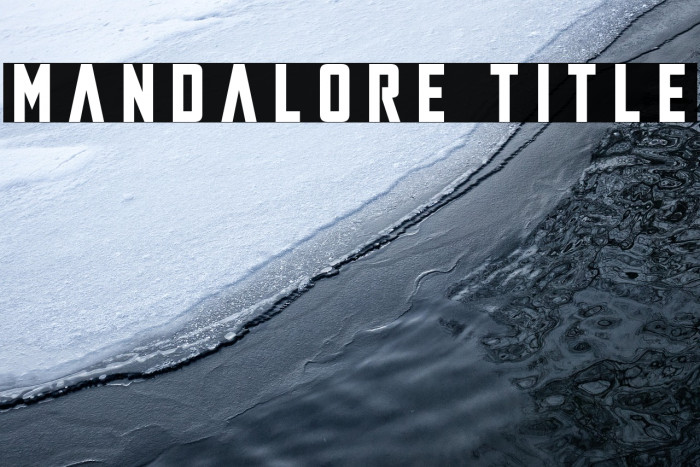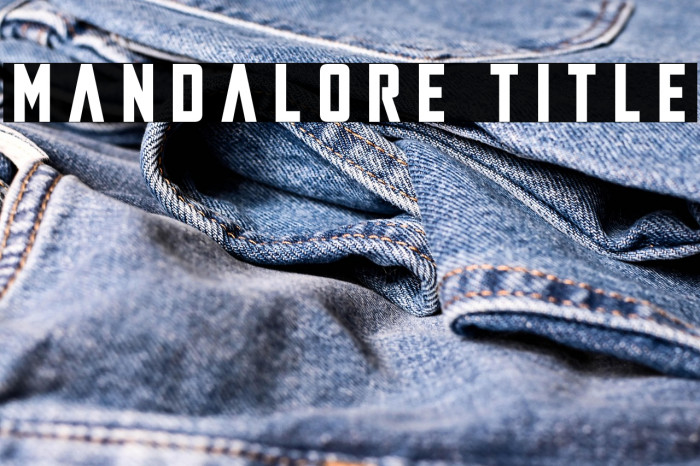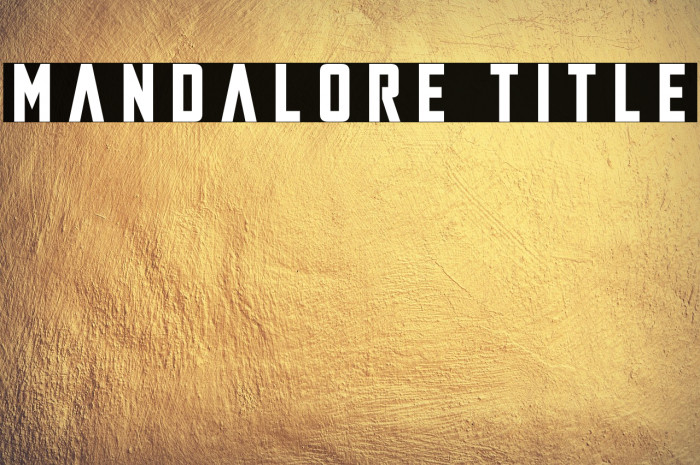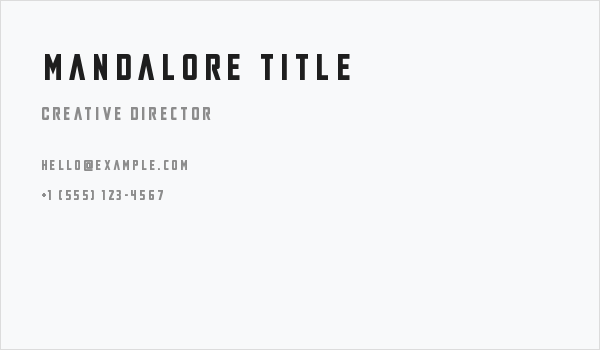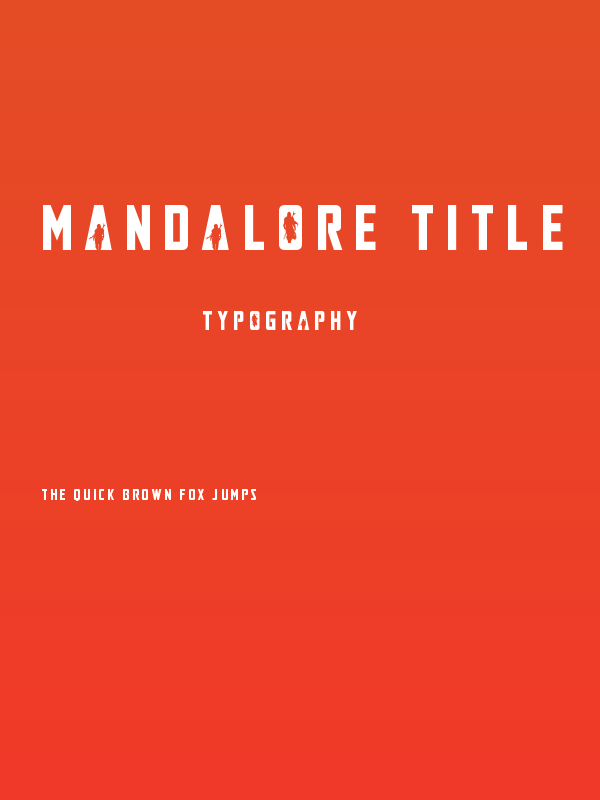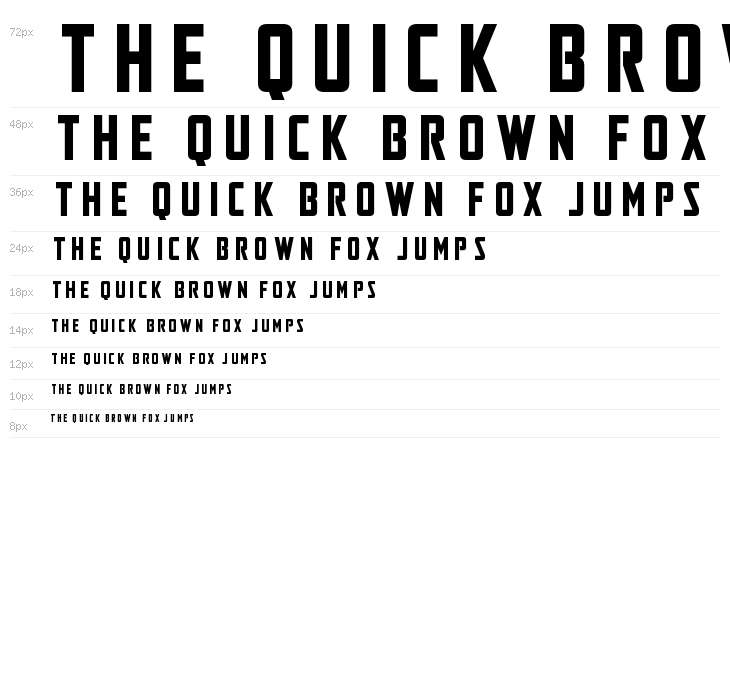
Mandalore Title Font
Mandalore Title Description
This font features a bold, geometric style with a strong presence. The characters are blocky and angular, giving it a futuristic and robust appearance. The uppercase letters are particularly striking, with some characters incorporating unique cutouts and shapes that add to the font's distinctiveness. The numbers and special characters maintain this bold and angular design, ensuring consistency across all glyphs. The font's design is reminiscent of science fiction and modern technology themes, making it ideal for projects that require a strong and impactful visual statement.
| Proposed Projects | Ideal for use in science fiction themes, technology branding, video game titles, and futuristic posters. |